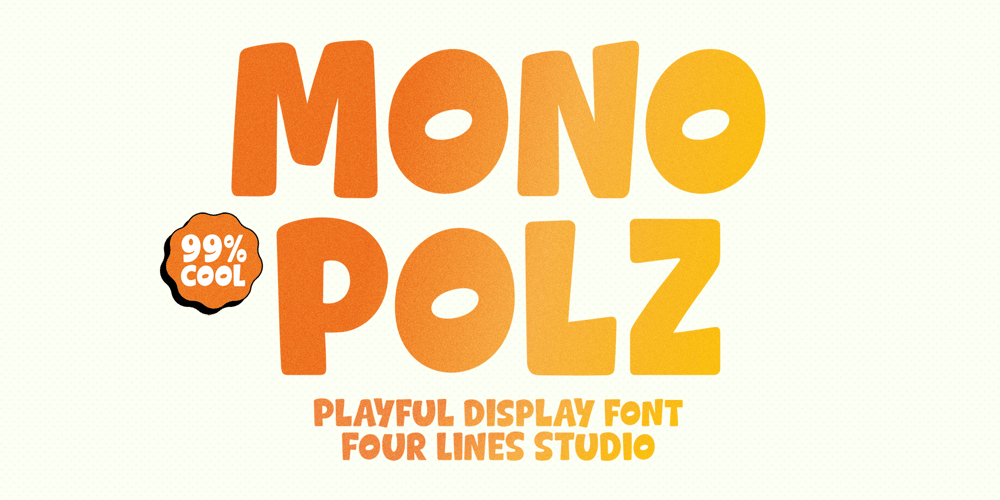
Mono Polz Font Family was designed by Zain Fahroni and published by Four Lines Std. Mono Polz contains 1 styles and family package options. “Mono Polz” takes its inspiration from the zany and eccentric world of cartoons. Every letter is an explosion of creativity, with bold lines and playful shapes that’ll make your designs pop right off the page. It’s the perfect font to add a touch of comic mischief to your projects.- Uppercase